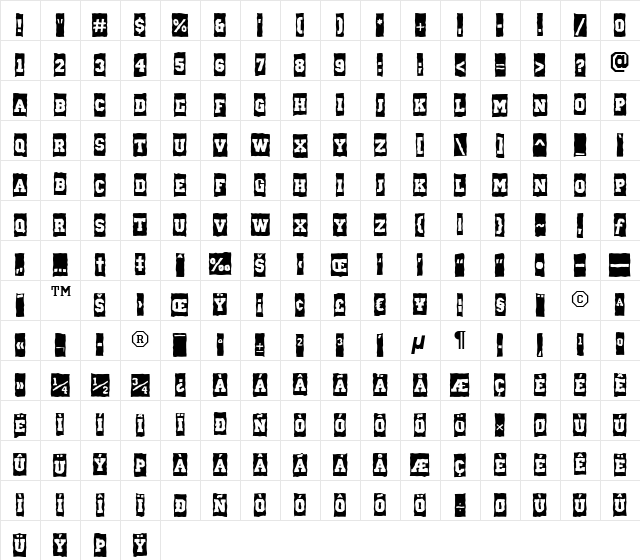
a_CampusCmBrk Bold Font Preview
a_CampusCmBrk Bold
a_CampusCmBrk Bold Font Details
| Designer | W.Chufarofsky & M.Slutsker |
Design Context for a_CampusCmBrk Typeface
a_CampusCmBrk is a composed and adaptable typeface that performs quietly and consistently across a wide range of design contexts. The heavy weight commands attention and anchors typographic hierarchies.